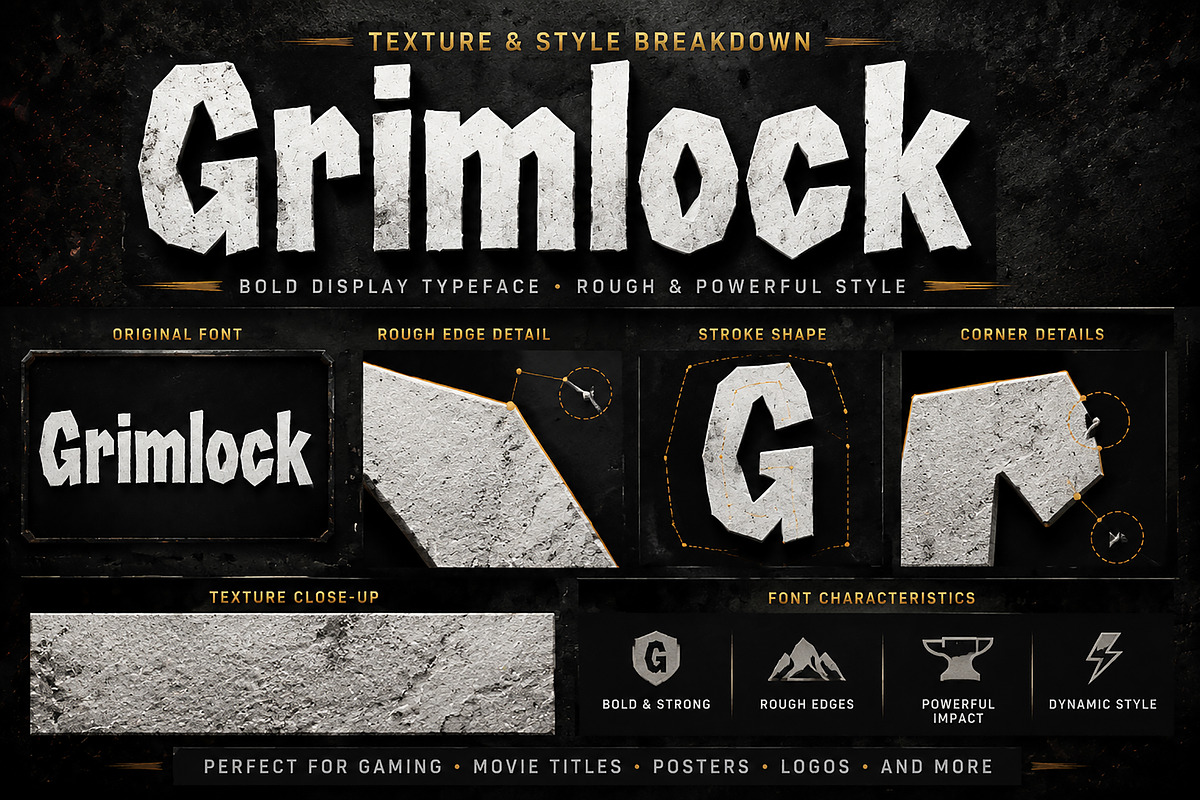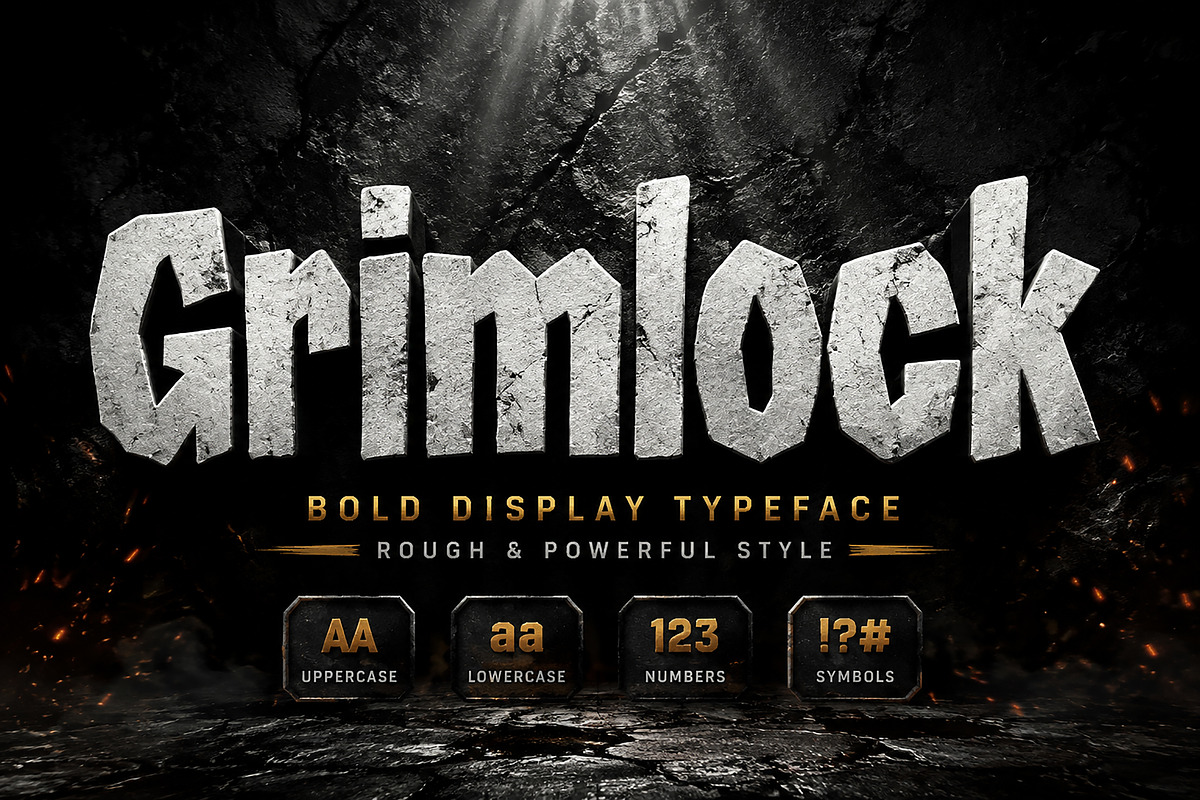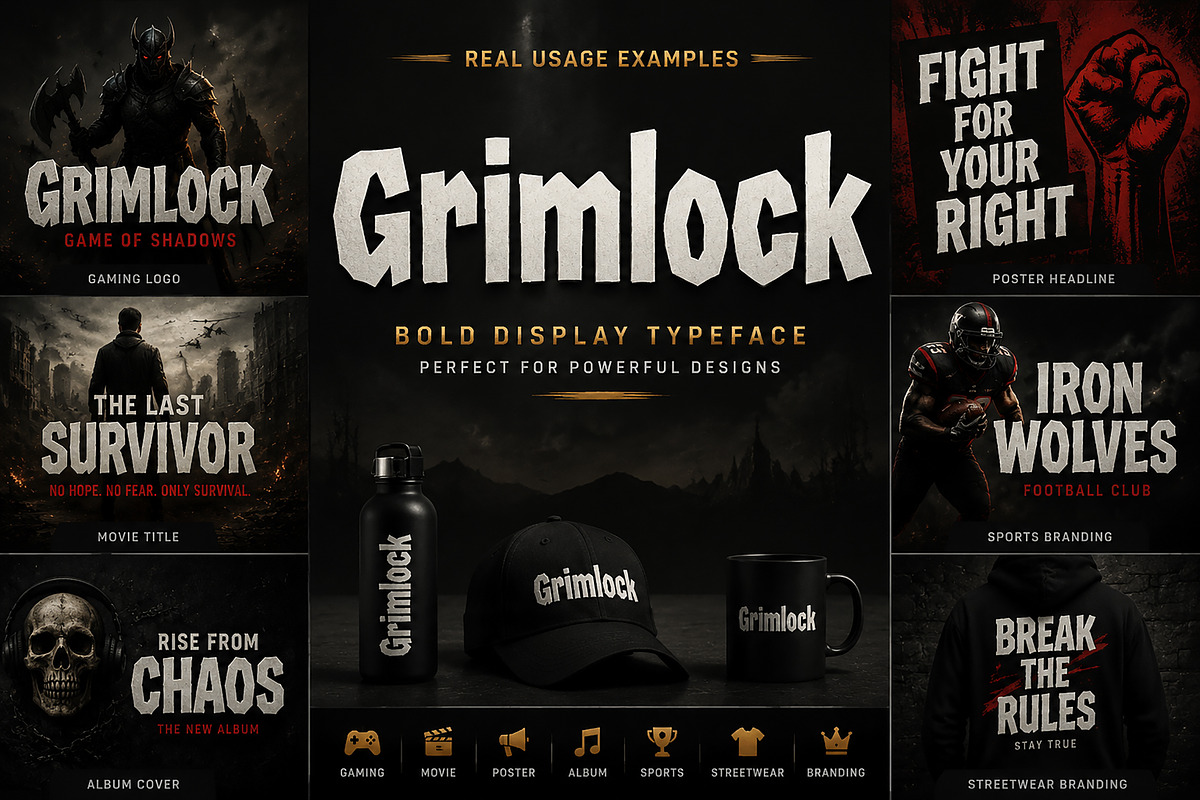
Grimlock
Grimlock - Bold Rough Display Typeface Font
Description:
Grimlock is a powerful bold display typeface designed with a rough, heavy, and aggressive visual style. Its strong geometric shapes, sharp edges, and rugged character make it perfect for creating impactful designs that demand attention.
This font is ideal for gaming logos, movie titles, posters, album covers, sports branding, streetwear designs, merchandise, headlines, and creative branding projects.
Designed for designers who need a bold and unique typeface with a strong personality, Grimlock brings a cinematic and industrial feeling to every project.
✔ Bold Display Typeface
✔ Rough & Powerful Style
✔ Strong Impactful Letterforms
✔ Perfect for Posters & Branding
✔ Suitable for Gaming & Entertainment Designs